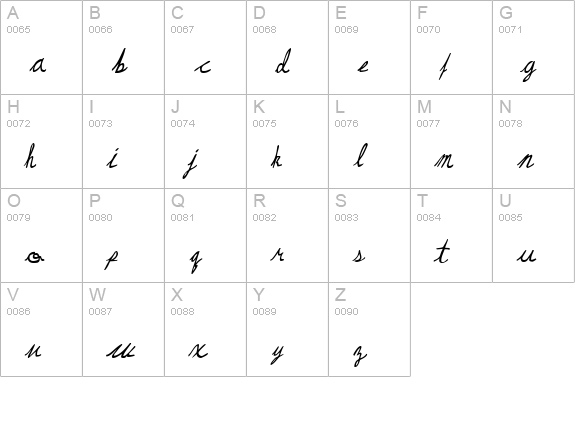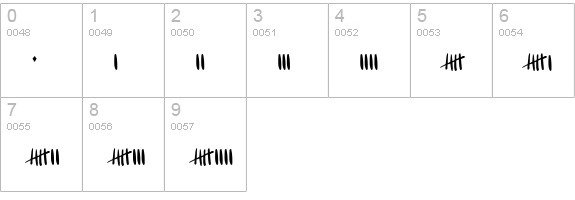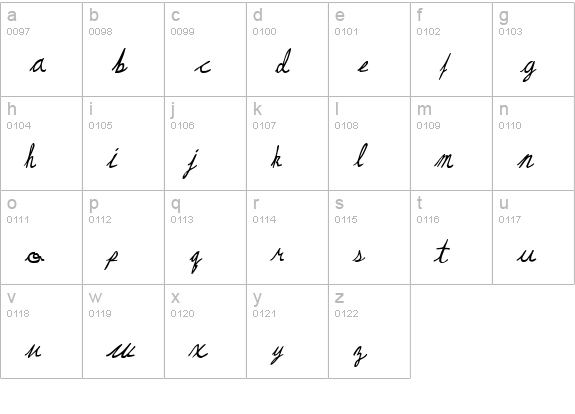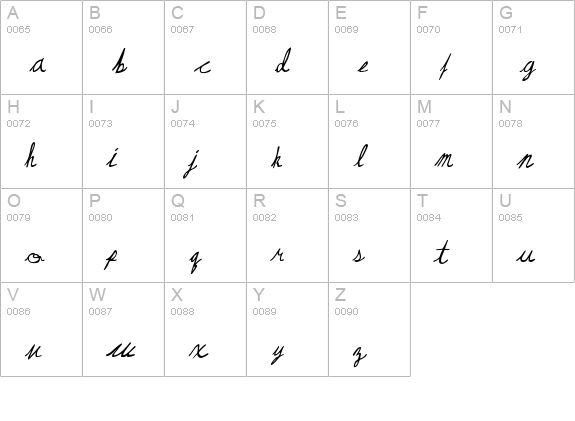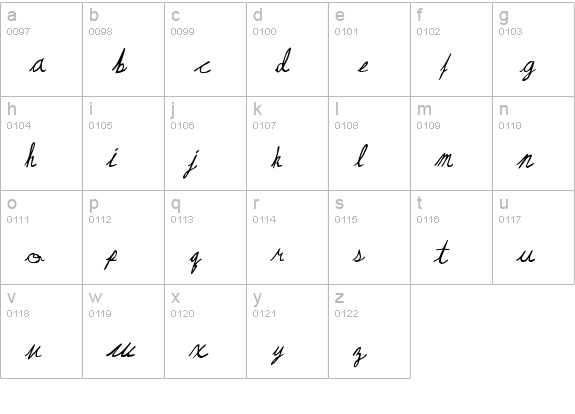
May Queen Font Details
May Queen font is a whimsical and elegant typeface that exudes a sense of charm and grace. With its intricate detailing and flowing curves, this font is perfect for adding a touch of sophistication to your designs. Whether you're working on invitations, branding, or any other creative project, May Queen font is sure to make a statement. Best of all, May Queen font is available for free! You can easily download it at FontsMarket.com and start using it right away. Don't miss out on this beautiful and versatile font that will elevate your designs to the next level.